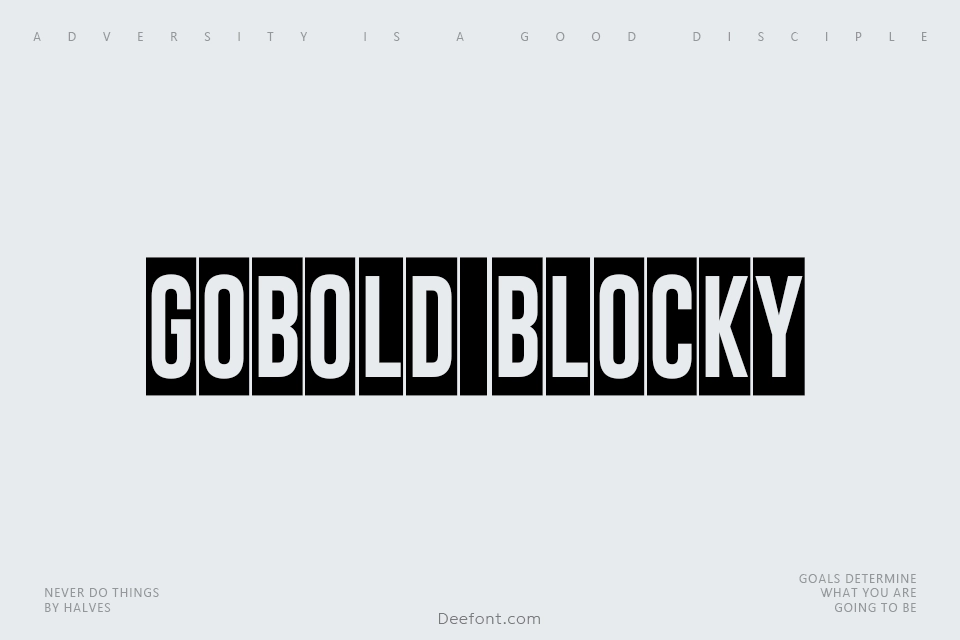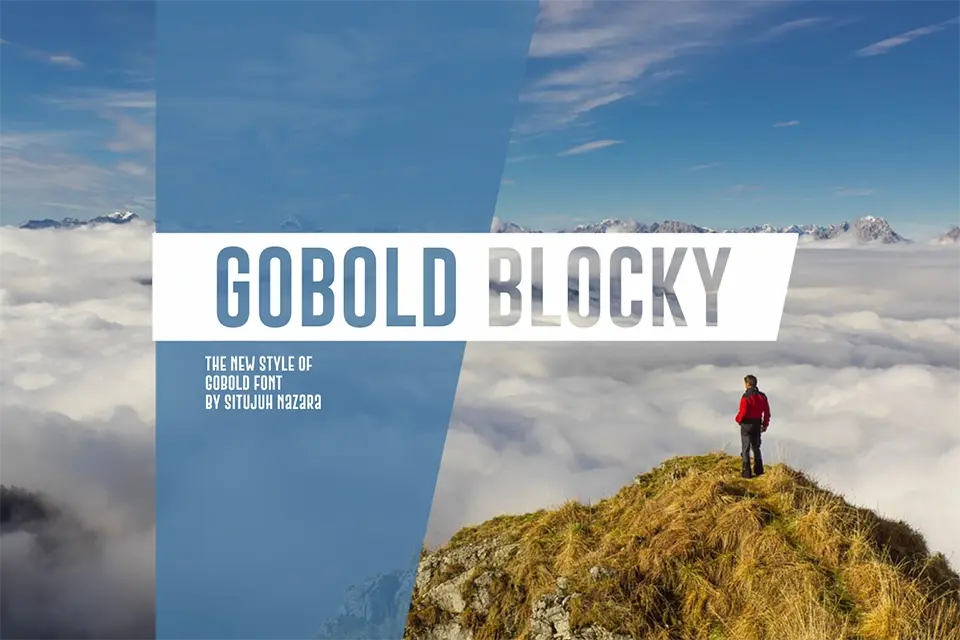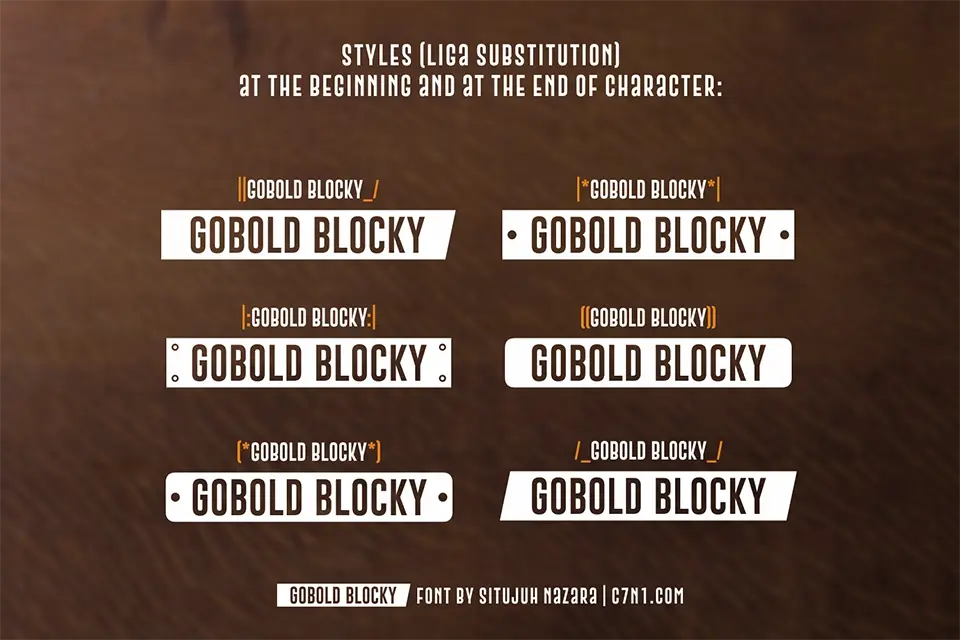
Gobold Blocky Font
Gobold Blocky is a bold, geometric display font designed by Situjuh Nazara that features a distinctive blocky aesthetic with transparent background styling. The font supports OTF and PUA encoding, allowing users to easily customize letter styles at the beginning and end of words through ligature substitution. With over 588,000 downloads, this typeface combines contemporary design with playful, structured letterforms, making it ideal for bold headlines, branding projects, and creative typography work.